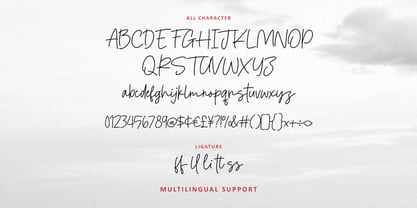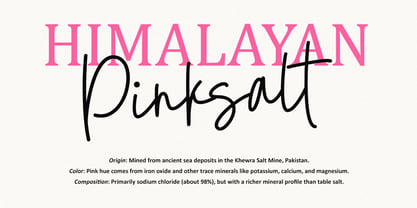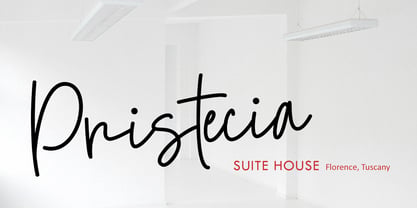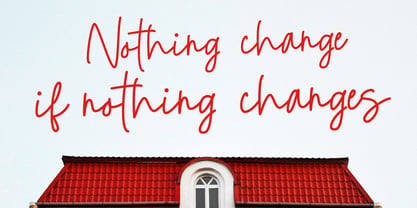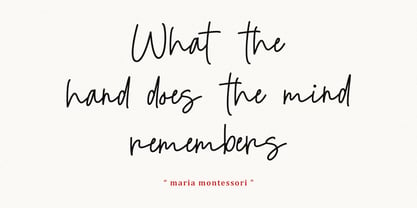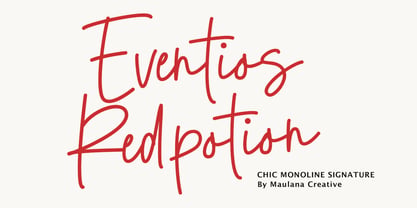
MC Eventios Redpotion
by Maulana Creative
The MC Eventios Redpotion Font Family was designed by Gilang Maulana and published by Maulana Creative. MC Eventios Redpotion contains 1 styles. More about this family
Eventios Redpotion is a stylish monoline signature font that exudes effortless elegance and contemporary charm. Designed by Maulana Creative, this font features fluid, handcrafted strokes that mimic natural handwriting with a consistent line weight. Its clean yet organic feel makes it perfect for sophisticated branding, luxury logos, wedding invitations, and social media quotes. With its comprehensive character set, including ligatures and multilingual support, Eventios Redpotion brings a personal and “chic” touch to any creative project that requires a modern, humanistic aesthetic.
Designers: Gilang Maulana
Foundry: Maulana Creative